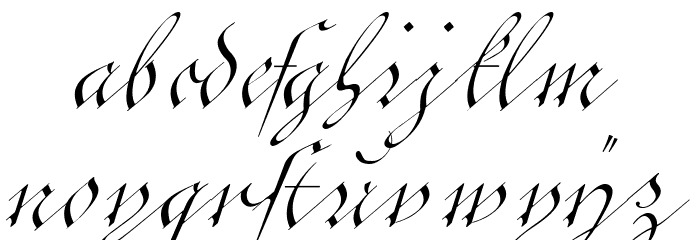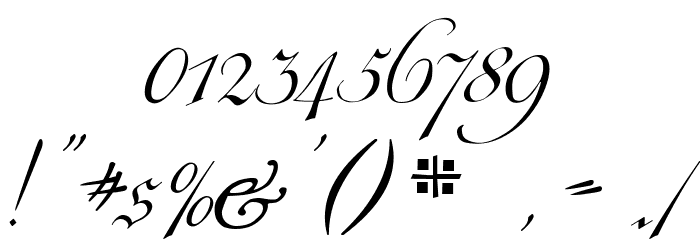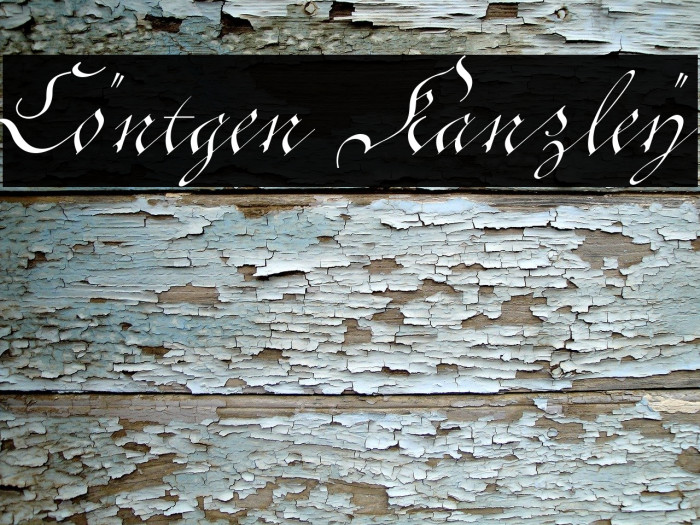
Cöntgen Kanzley Font
This font exudes elegance and sophistication with its intricate and flowing script style. The characters are highly decorative, featuring elaborate swirls and flourishes that give it a calligraphic appearance. The uppercase letters are particularly ornate, with each letter displaying unique embellishments that enhance its visual appeal. The lowercase letters maintain a consistent style, offering a harmonious blend of curves and angles. Numbers and special characters are crafted with the same attention to detail, ensuring a cohesive look throughout. This font is ideal for projects that require a touch of luxury and refinement.
An elegant and sophisticated script font with intricate swirls and flourishes.
- Proposed Projects: Ideal for wedding invitations, luxury branding, high-end product packaging, and elegant event signage.
- Use Case: Logos, Invitations, Decorative text